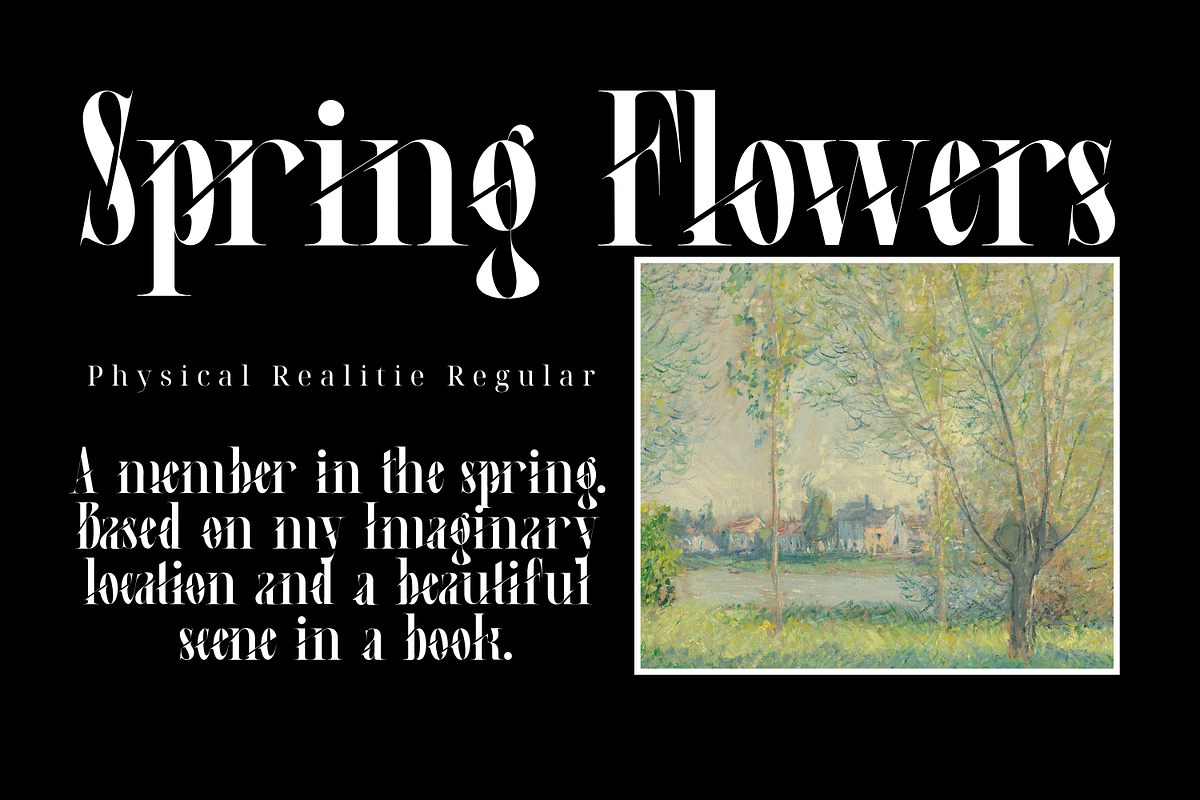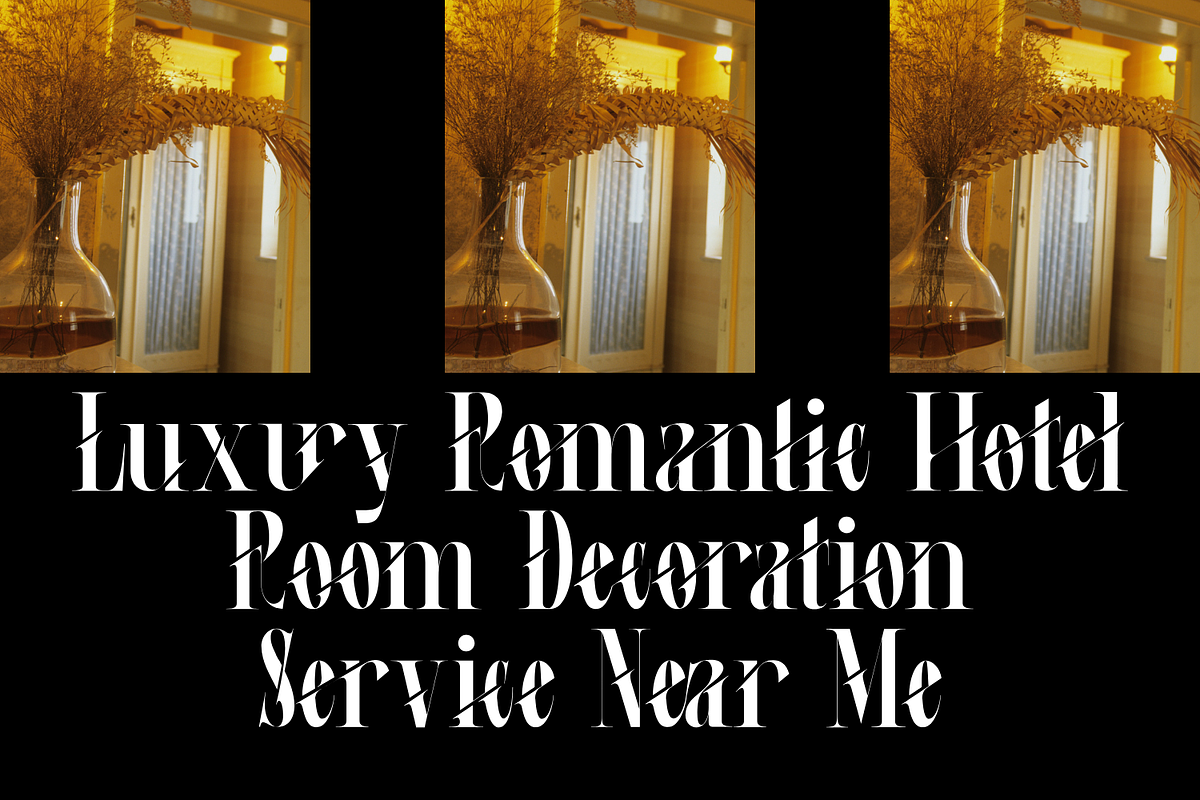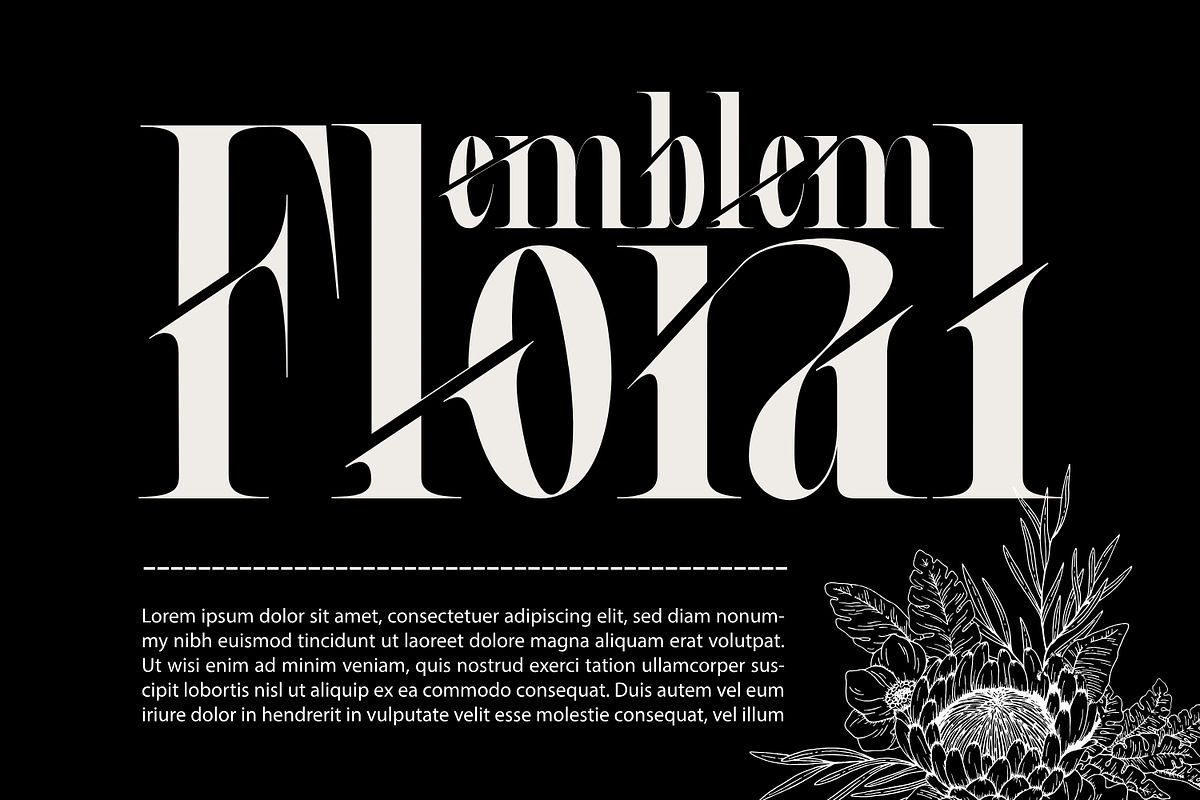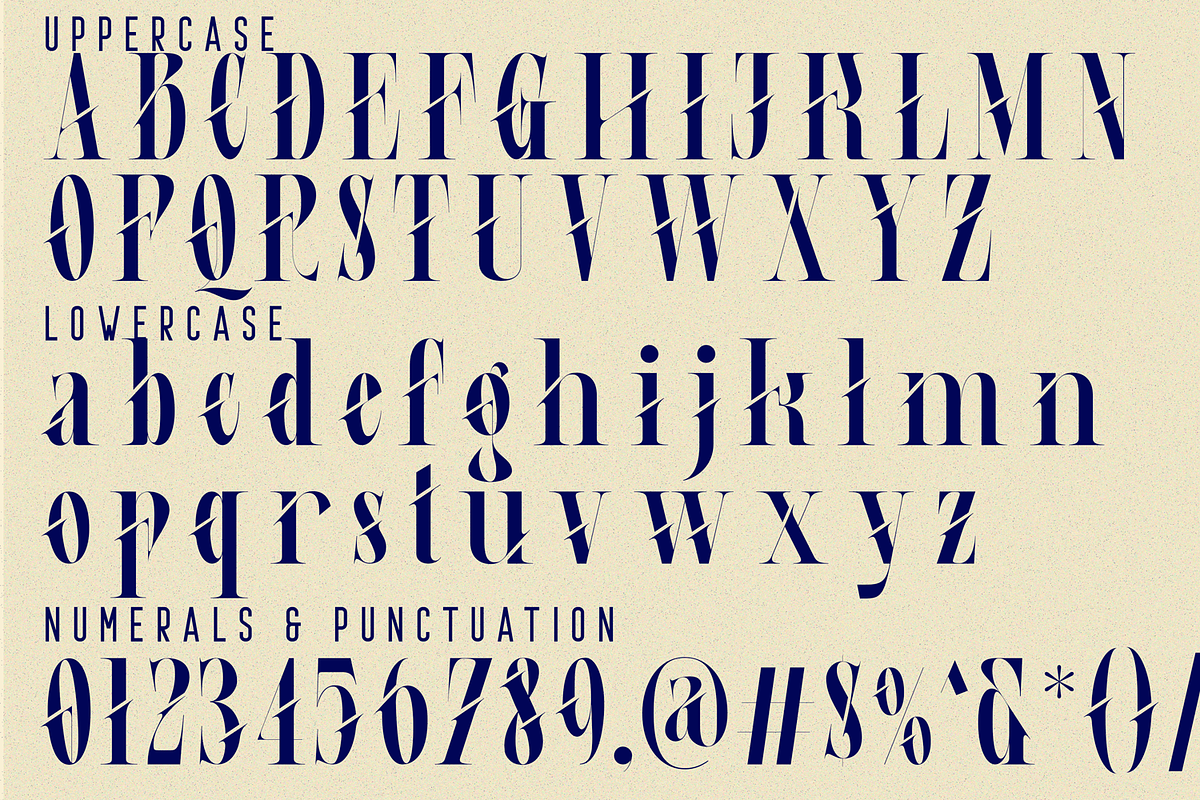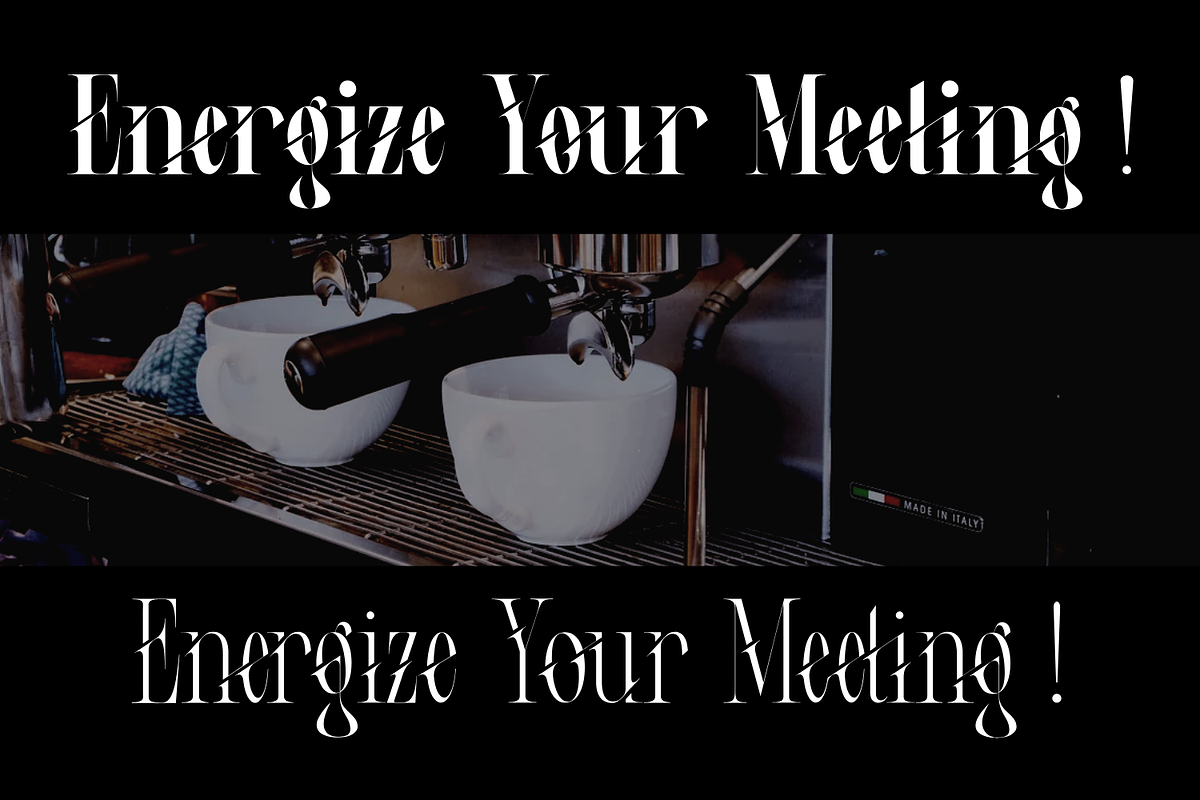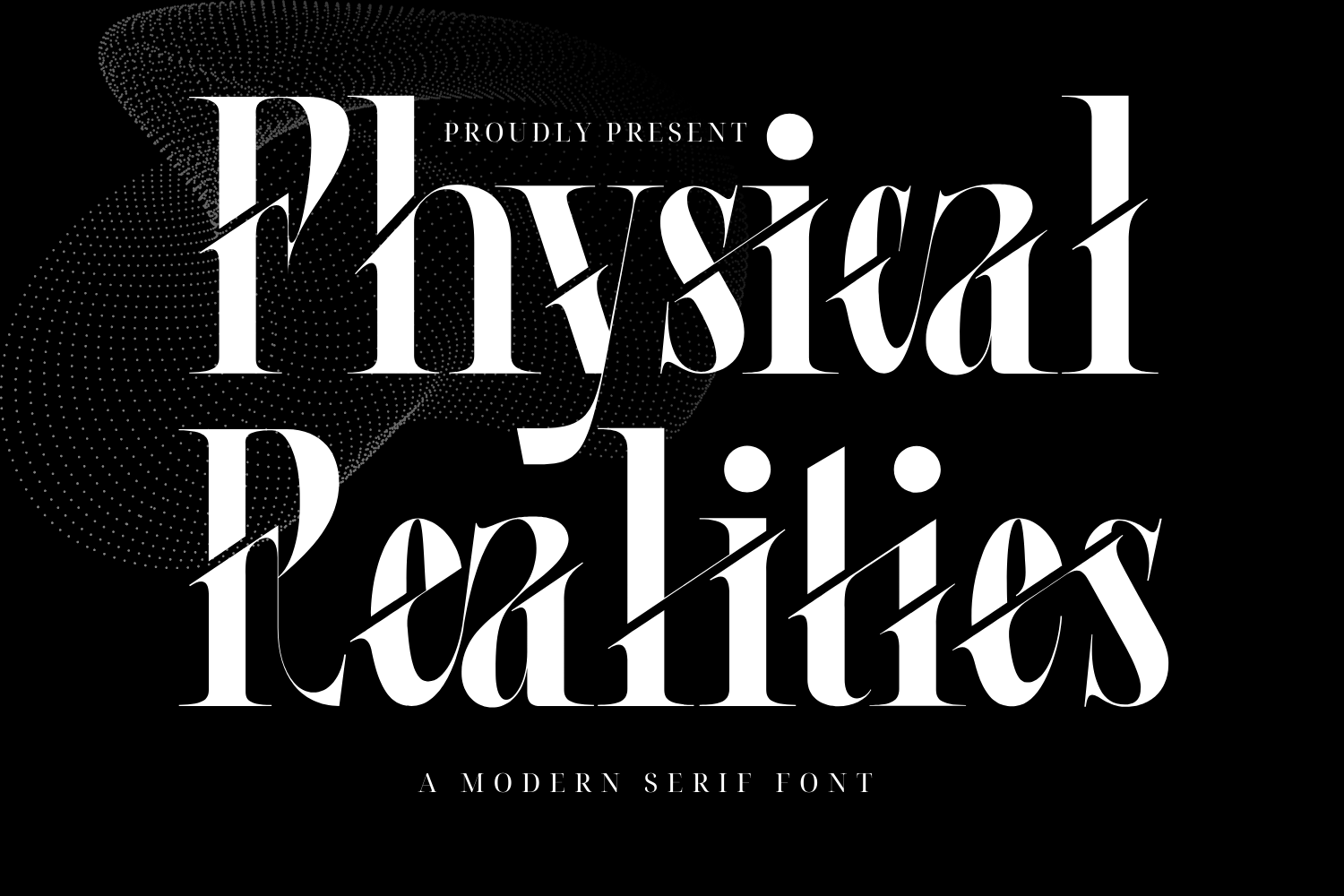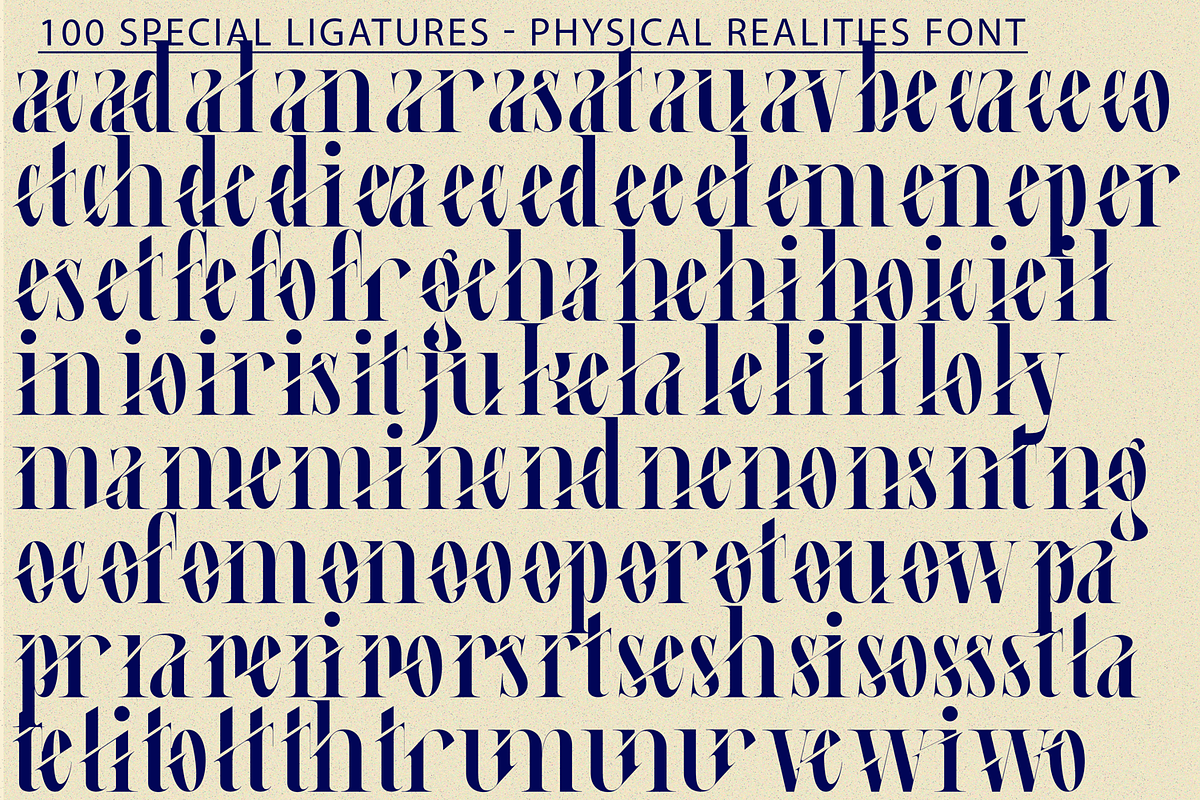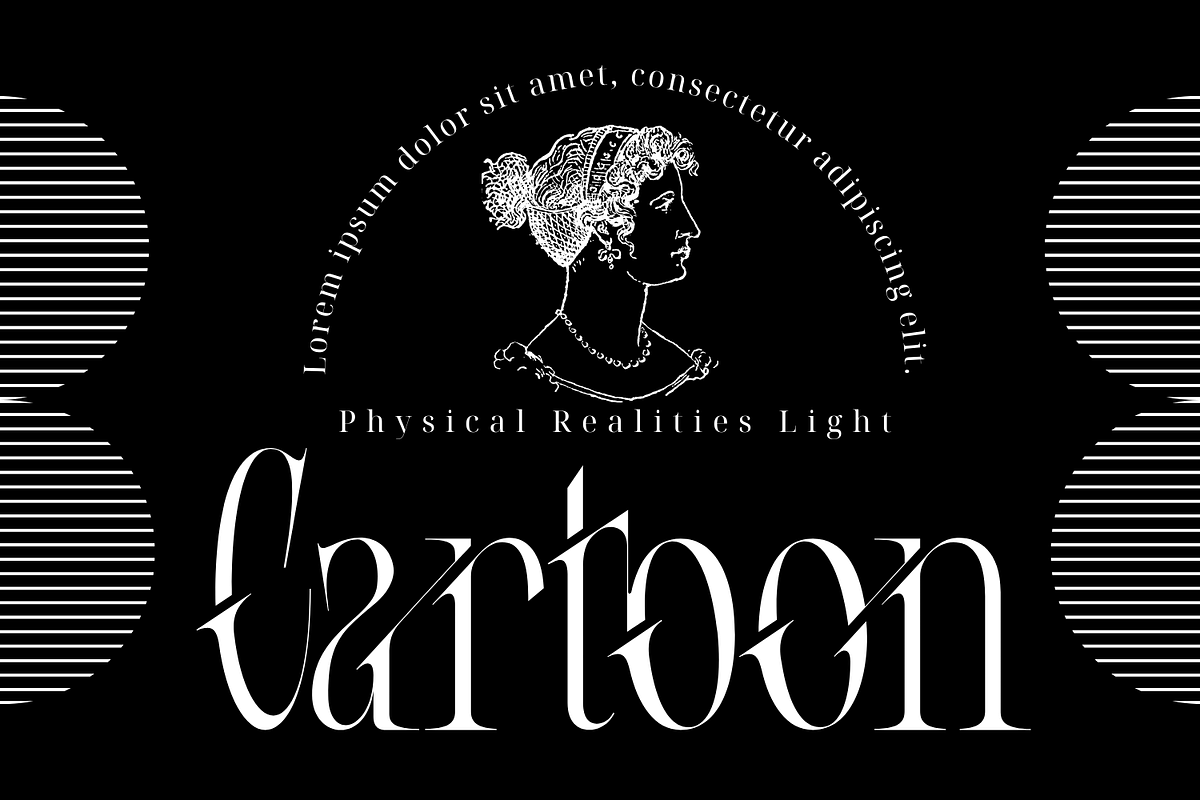
Physical Realities Font
Physical Realities Font - Stylish Display Serif Font is a modern, elegant typeface designed to bring sophistication and creativity to any project. Featuring intricate ligatures and unique, this font beautifully blends multiple letters into distinctive, seamless shapes, giving your typography a one-of-a-kind, artistic flair. This font offers beautiful typographic harmony for a diversity of design projects, including logos & branding, social media posts, advertisements & product designs.
Physical Realities was built with OpenType features and includes 100 ligatures, alternate, numbers, punctuation, and it also supports other languages.
ac ad al an ar as at au av be ca ce ch co ct de di ea ec ed ee el em en ep er es et fe fo fr ge ha he hi ho ie ic il in io ir is it ju ke la le li ll lo ly ma me mi nc nd ne ng no nt ns oc of om on oo op or ot ou ow pa pr ra rd re ri ro rs rt se sh si so ss st ta te th ti to tr tt um un ur ve wi wo